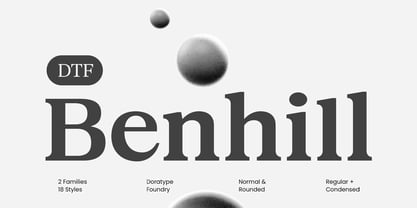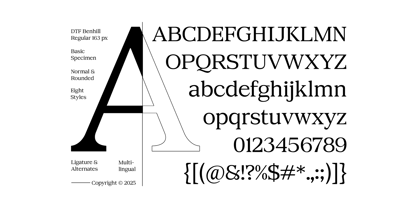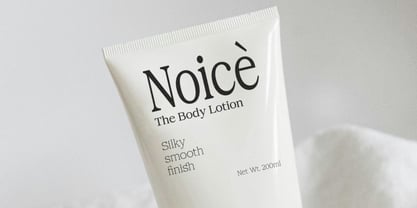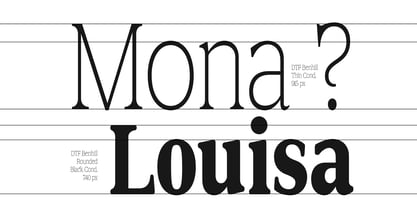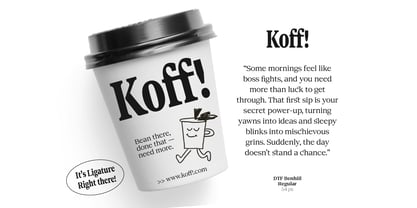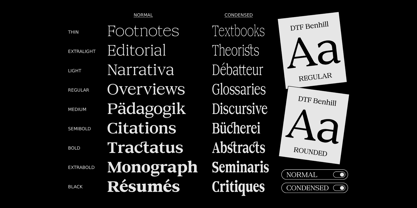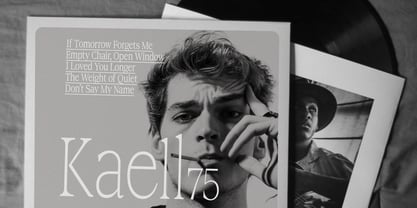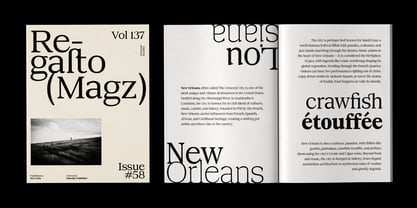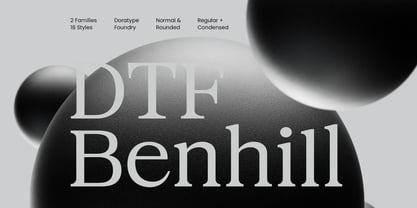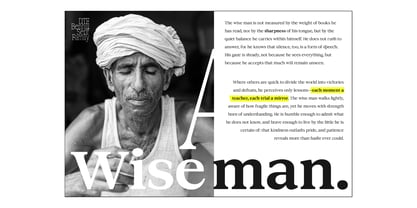
DTF Benhill
by Dora Typefoundry
The DTF Benhill Font Family was designed by Zahratul Laila and published by Dora Typefoundry. DTF Benhill contains 38 styles and family package options. More about this family
Benhill is a contemporary serif font family designed by Doratype Foundry. This font combines classic serif styles with a sharp, clean modern touch, resulting in elegant yet bold letterforms. Benhill comes in two main families—Normal and Rounded—each with a variety of styles and weights, making it highly versatile for a variety of design needs, from editorial and branding to digital displays.
The font comes in 18 styles, including Regular and Condensed variants, providing extensive options within the typographic hierarchy. Its strong serif design, combined with well-proportioned and legible letterforms, makes it an attractive choice for projects requiring a professional and sophisticated feel. With comprehensive style support and a balanced visual aesthetic, Benhill is an ideal font choice for graphic designers seeking a harmonious classic-modern feel.
Designers: Zahratul Laila
Foundry: Dora Typefoundry